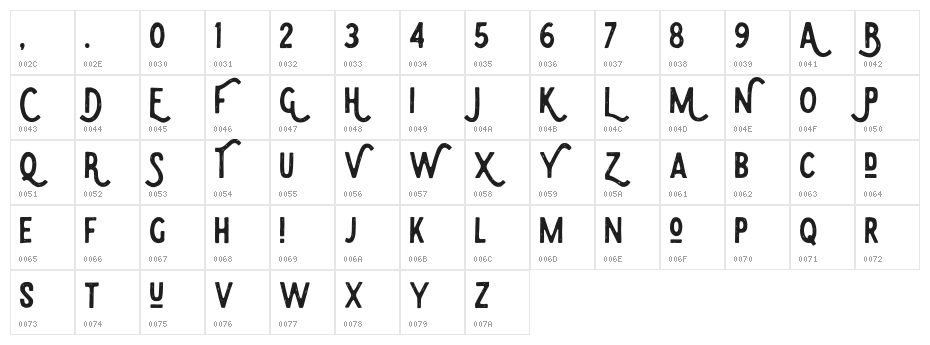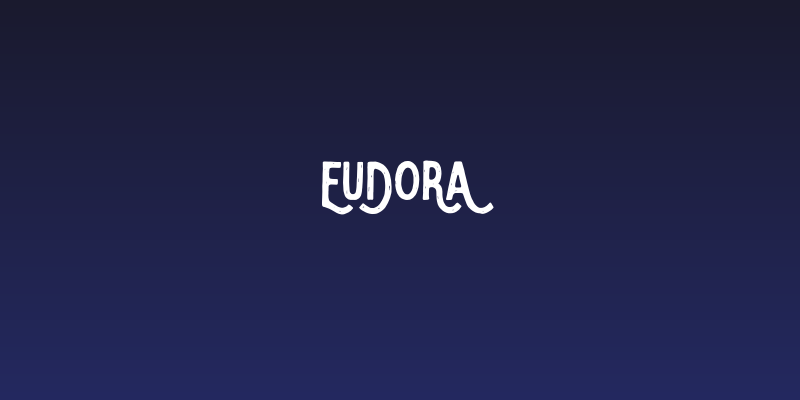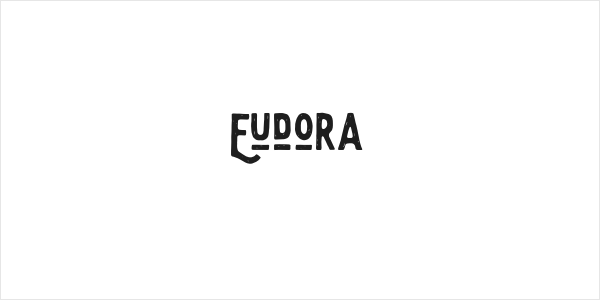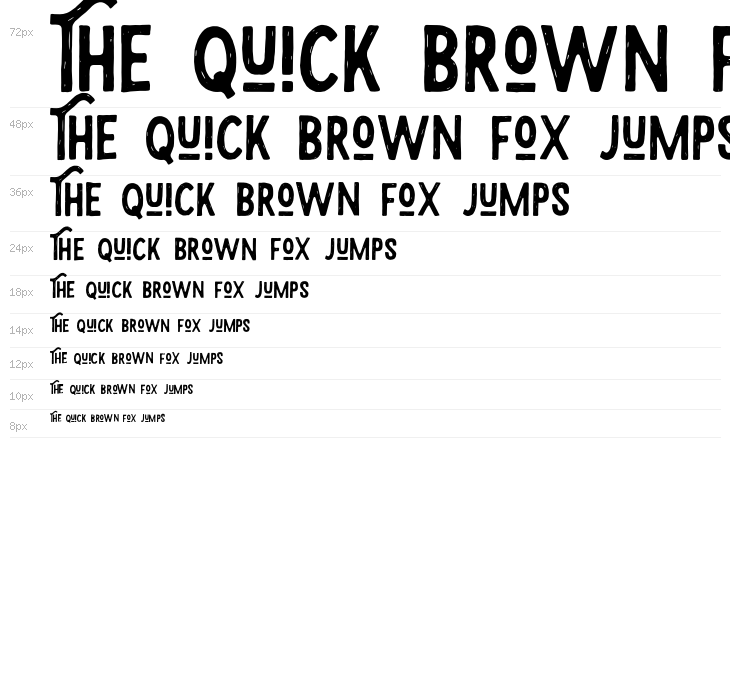
Eudora Font
Eudora Description
This font features a bold and playful design with a hand-drawn aesthetic. The characters are slightly irregular, giving it a whimsical and artistic feel. The uppercase letters have a strong presence, while the lowercase letters maintain a consistent style. The numbers are bold and match the overall theme. The font includes a limited set of special characters, adding to its unique charm. Its thick strokes and uneven edges create a dynamic and engaging visual impact, making it suitable for creative and informal projects.
| Overall Style | Playful, Artistic |
| Proposed Projects | Ideal for posters, children's books, creative branding, and playful packaging designs. |